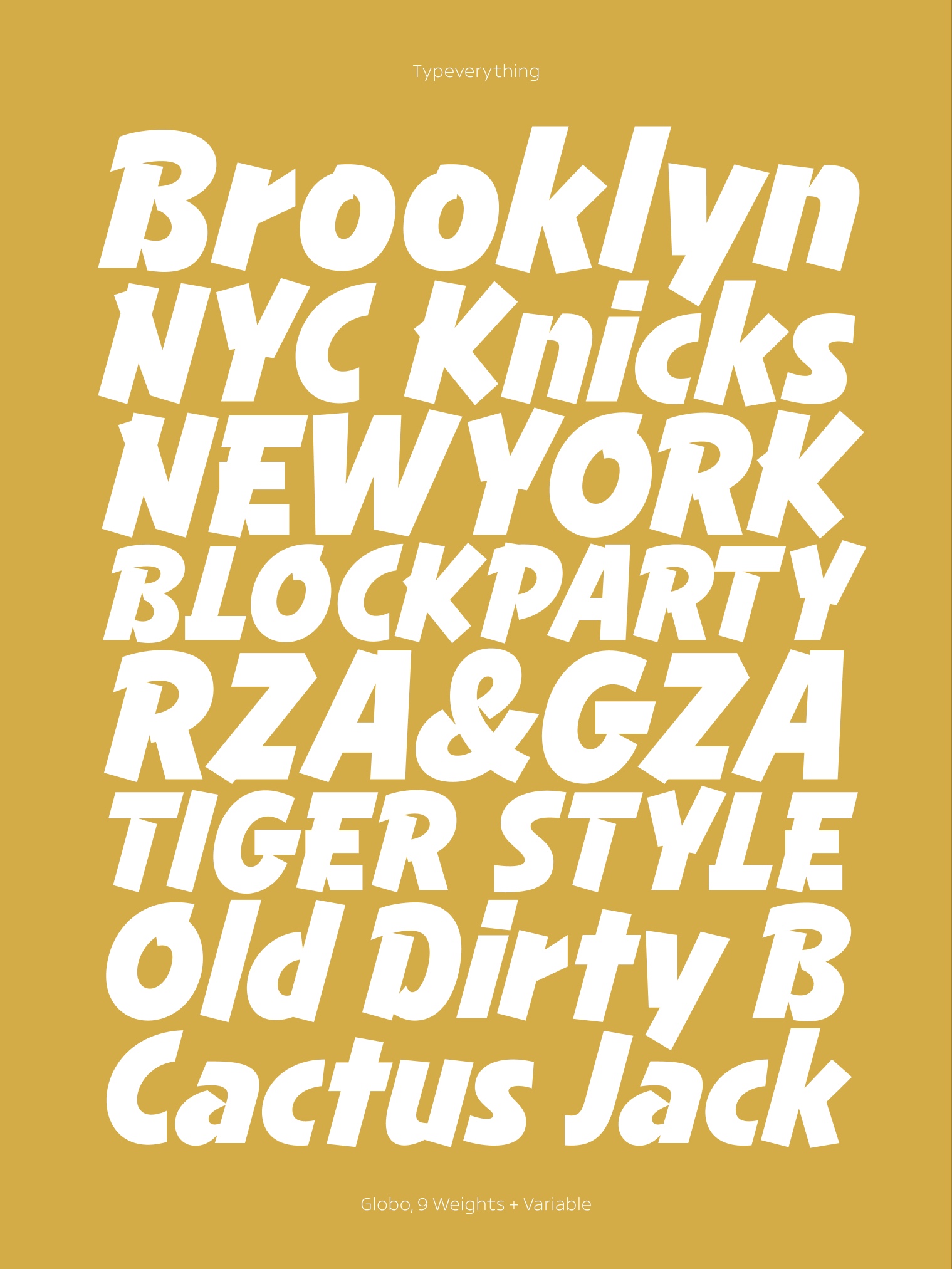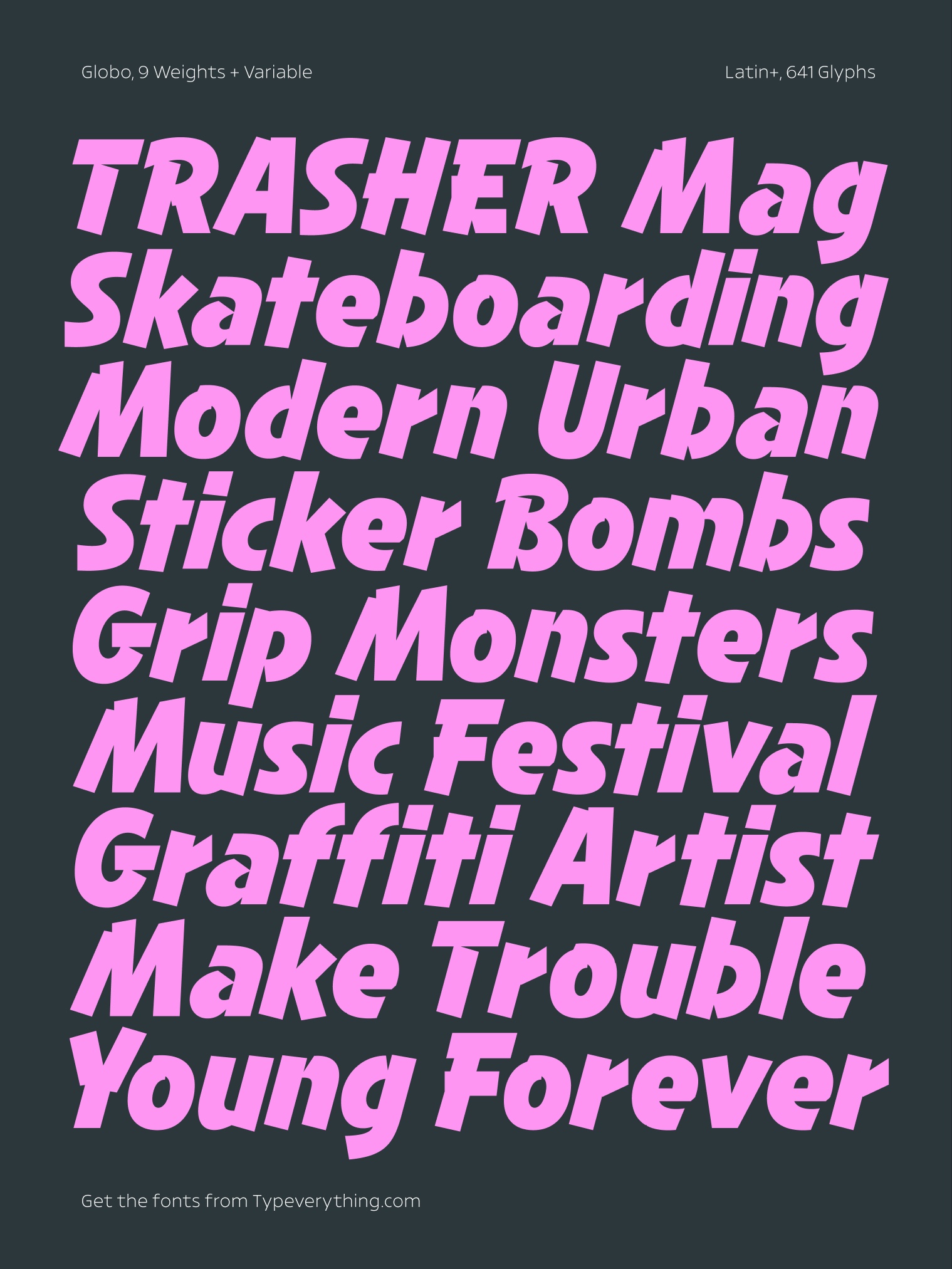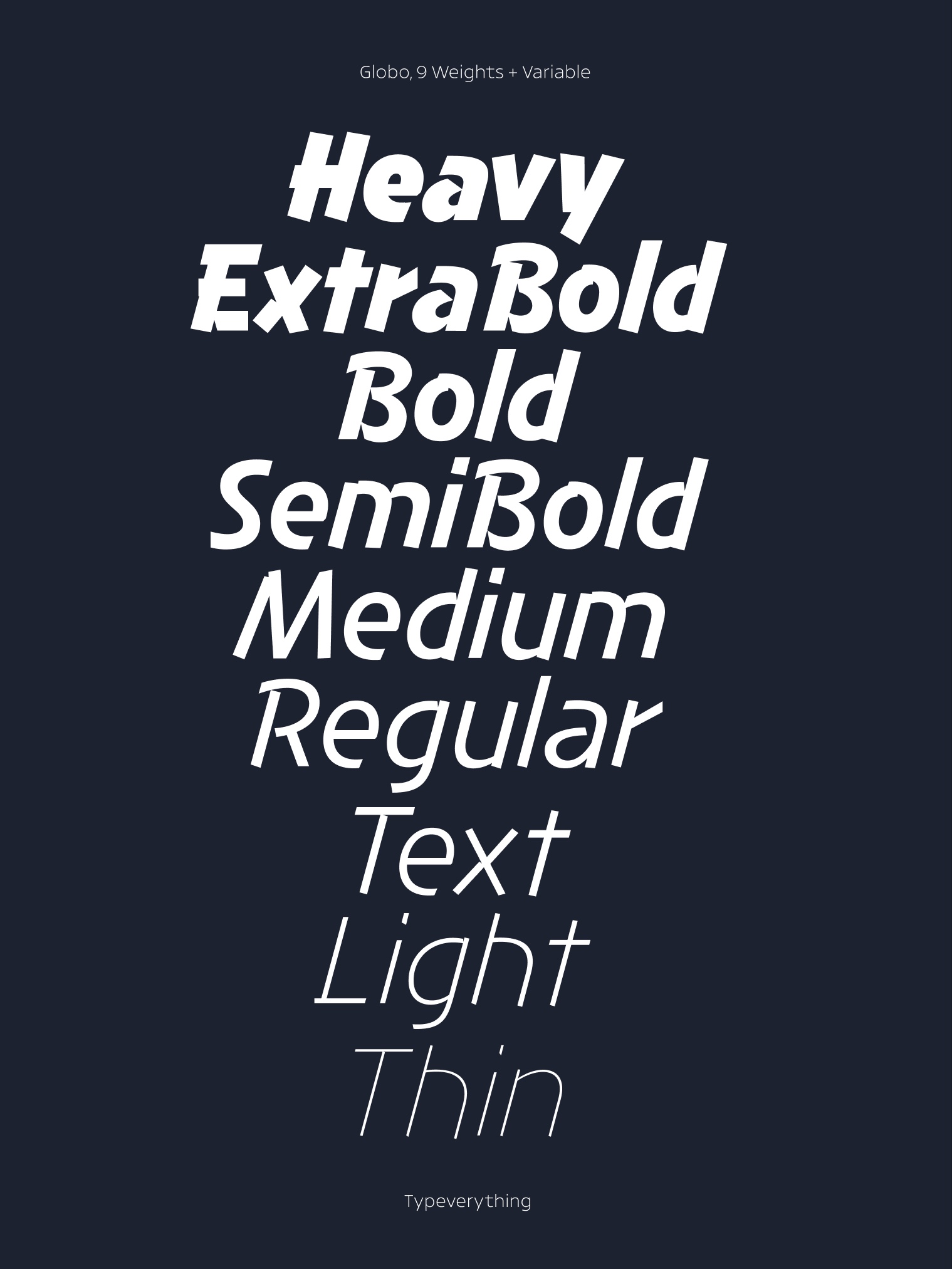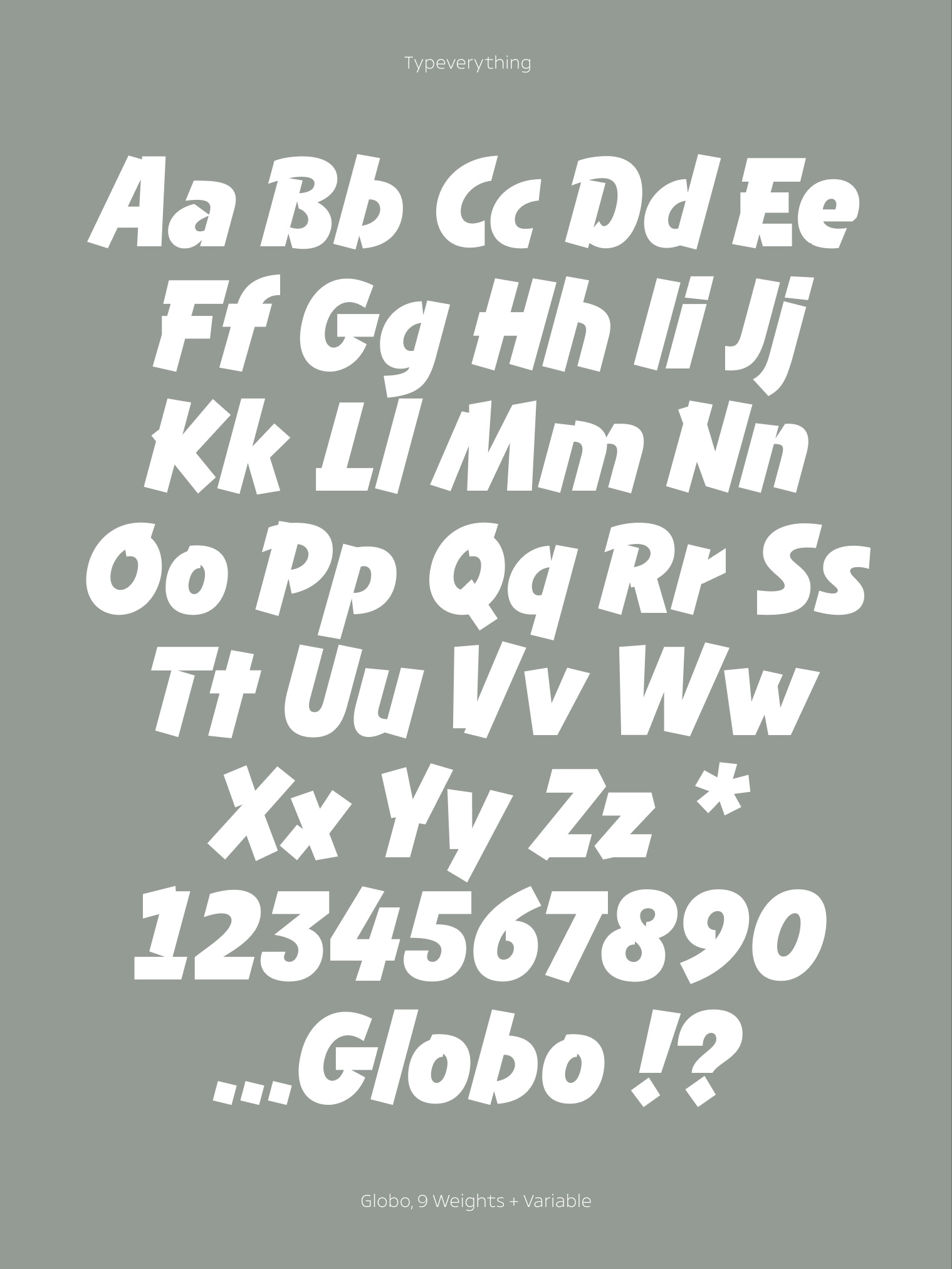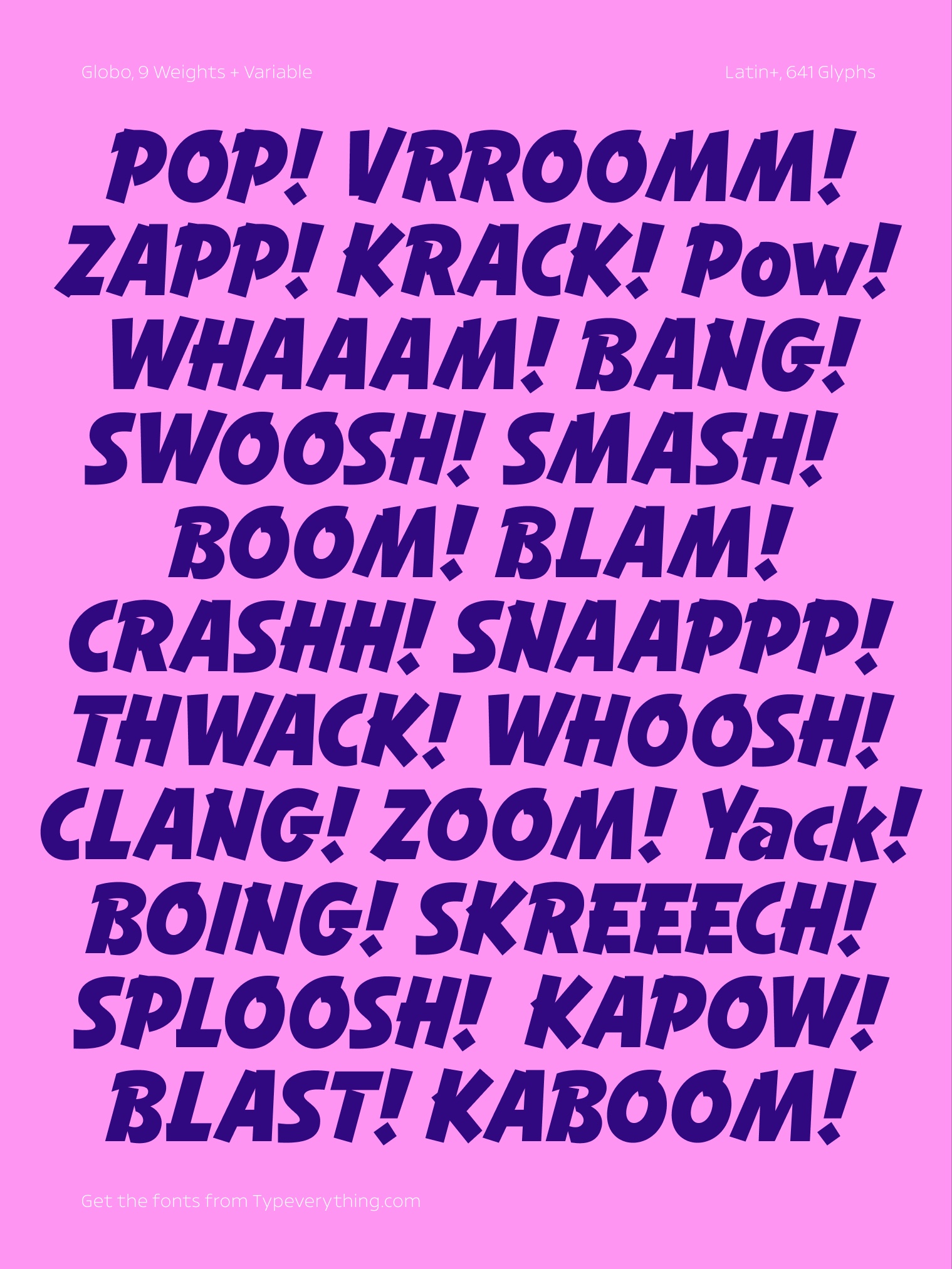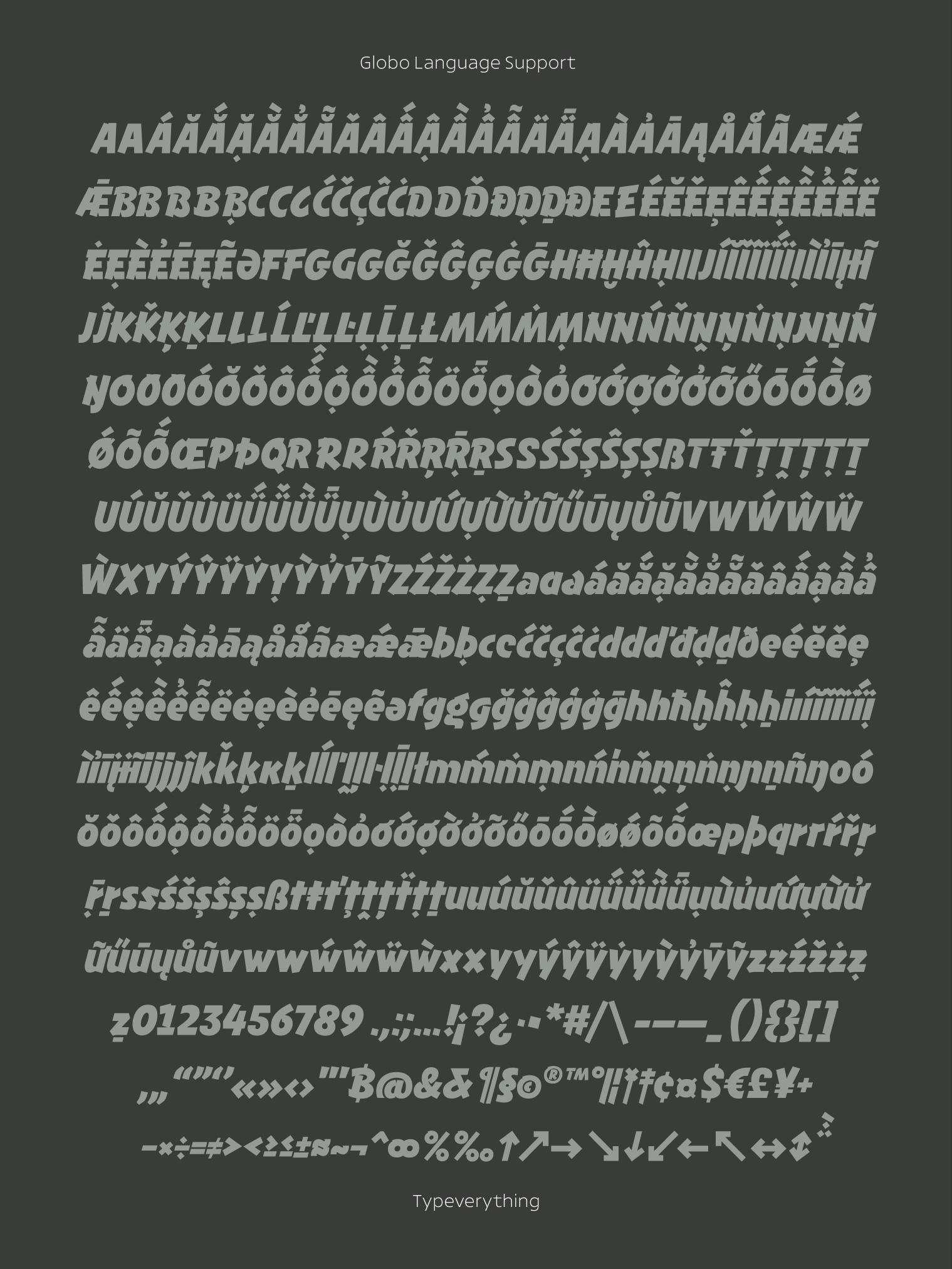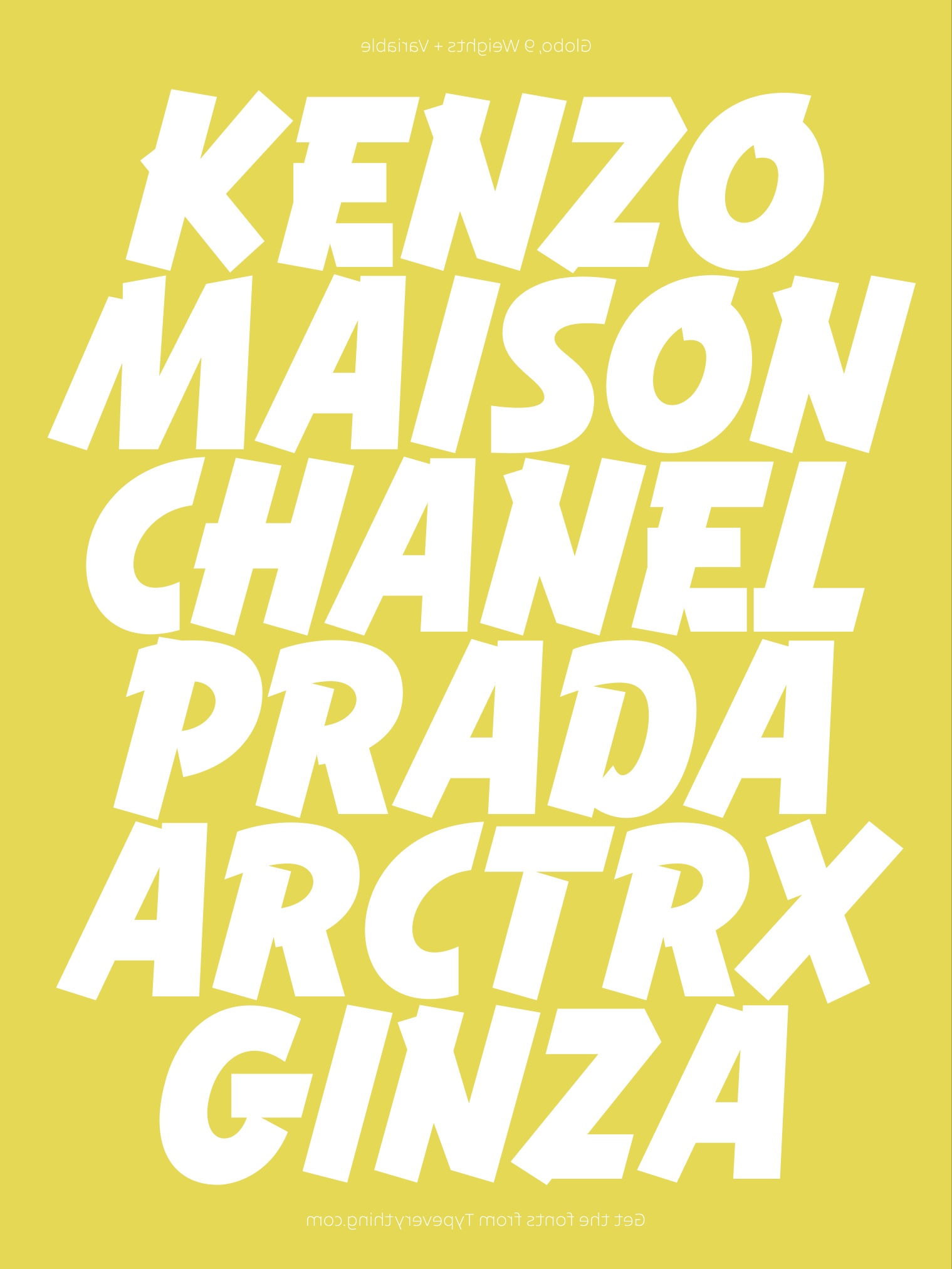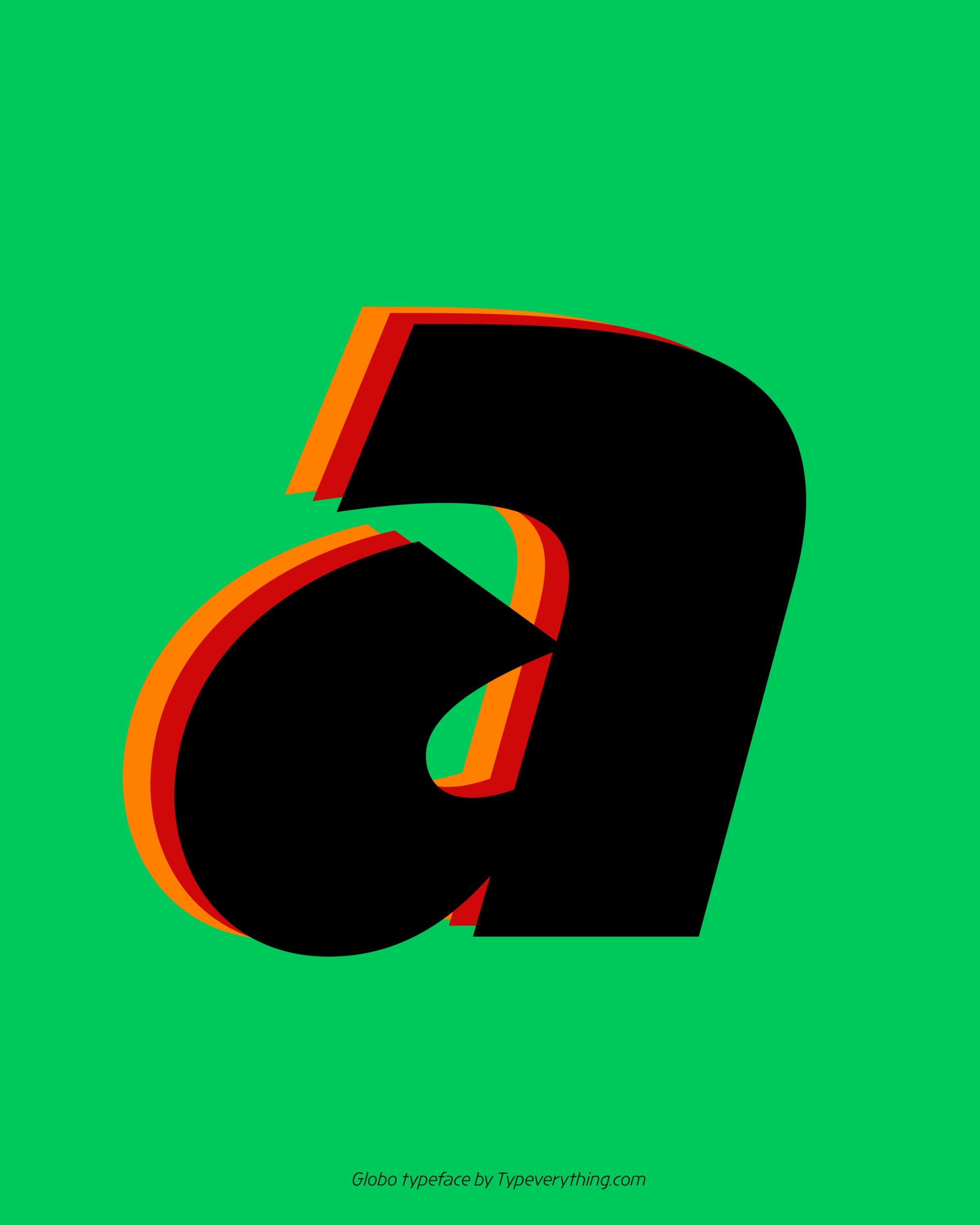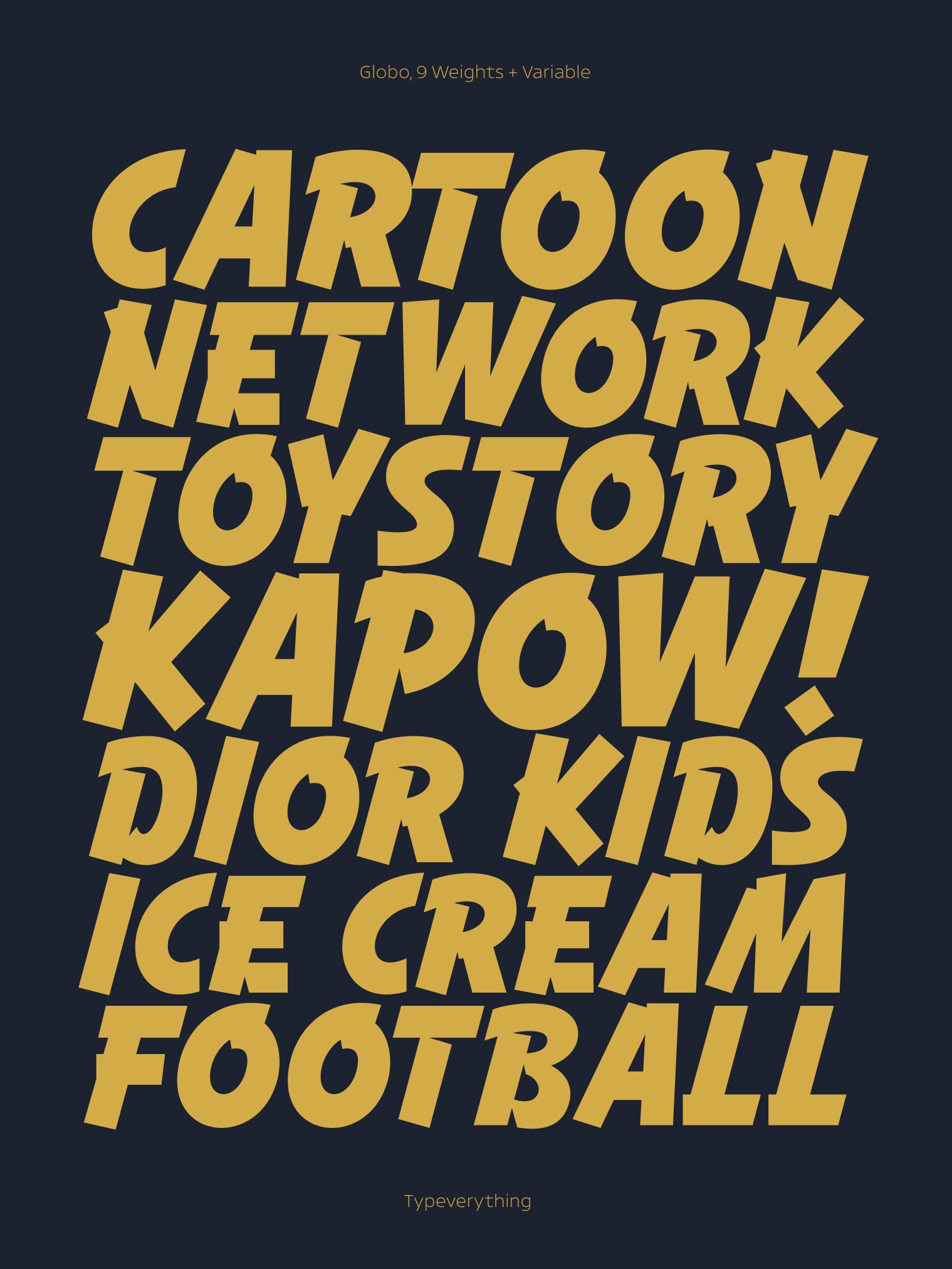
Globo Typeface by Typeverything.com
Globo is an a new energetic inclined titling typeface. The design began with a sketch found in the 1960 edition of Samuel Welo’s Studio Handbook for Artists and Advertisers, a rich visual archive of over 250 pages of lettering styles and layouts. One example, labeled “call this Chrysler,” featured bold uppercase poster lettering that instantly stood out. It captured the spirit of mid-century book covers: lively, expressive, and unmistakably handmade. Though rooted in brush lettering, the letterforms had a solid, robust quality that gave them a more contemporary edge. In expanding the sketch into a full typeface, we saw Globo as a modern alternative to classics like Balloon or Banco, fonts with a similar brush energy, but updated for today’s context. Globo thrives in settings where bold personality is key: sports, kids' products, food branding, music, streetwear, and more. Anywhere energy meets attitude, Globo delivers.